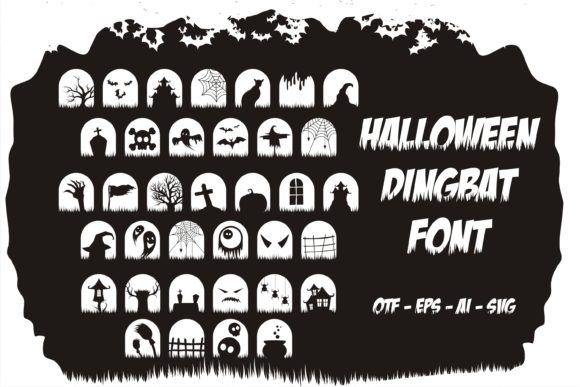
Unleash the spooky charm of Halloween Vibes Font, a dynamic dingbats font that will cast a spell on your designs. Step into a world of eerie elegance, where each character dances with a haunting beauty. From spine-chilling invitations to spine-tingling posters, let Halloween Vibes Font weave its magic into your creations.
Embrace the enchanting allure of this font and let your imagination soar. With Halloween Vibes, you can craft designs that send shivers down the spine. Whether it's a haunting logo that beckons like a ghostly whisper or a captivating social media post that casts a spell on its viewers, this font will leave an unforgettable impression.
Don't miss the chance to add this eerie masterpiece to your font collection. It's the perfect tool to add a touch of the supernatural to any project. Embark on a thrilling journey with Halloween Vibes Font and let your creativity flourish in the moonlight's glow.